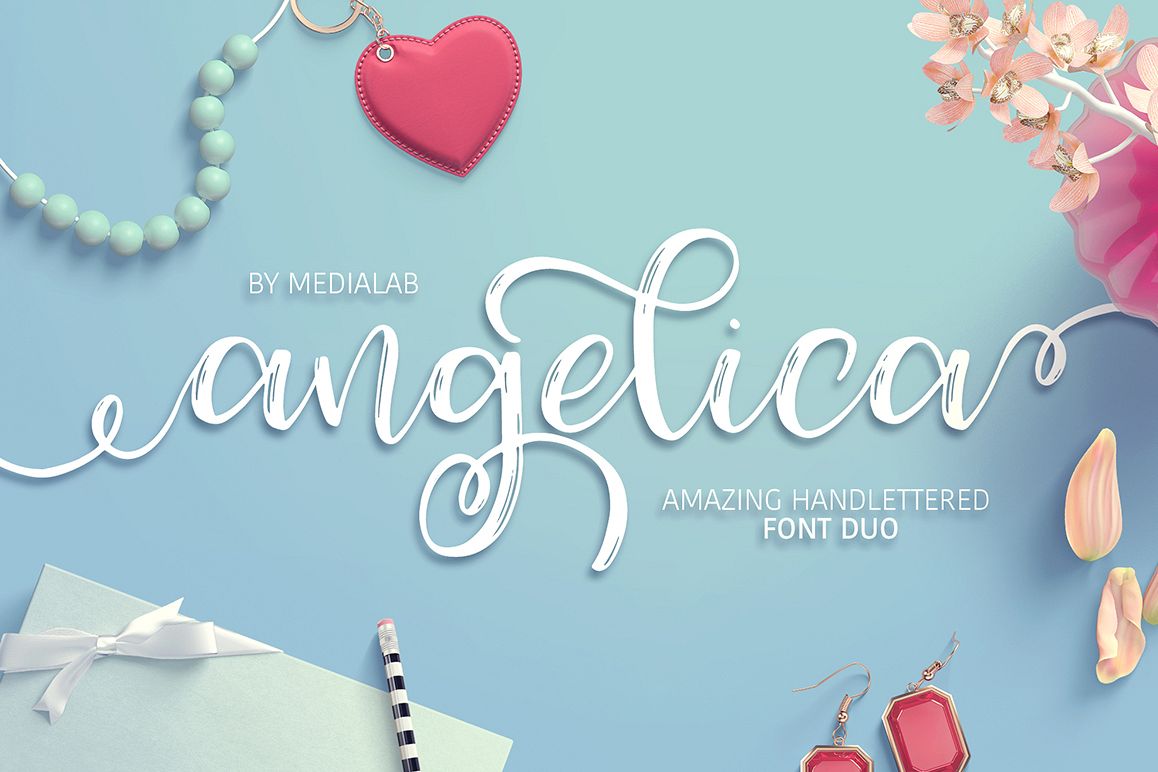
Angelica handwritten script
Angelica DUO
- a new fresh handmade calligraphy font. Very suitable for greeting cards, branding materials, business cards, quotes, posters, and more!